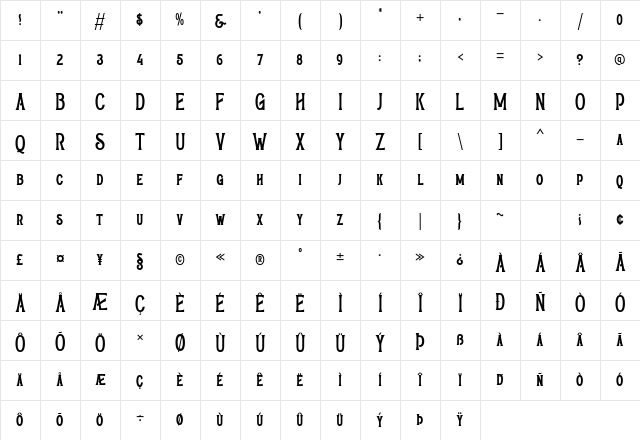
Galmoru Regular Free Font
Galmoru Regular
Foundry: Nirmana Visual
Designer: Sigit Dwipa Raharjo
Design Context for Galmoru
Galmoru is a composed and adaptable typeface that performs quietly and consistently across a wide range of design contexts.